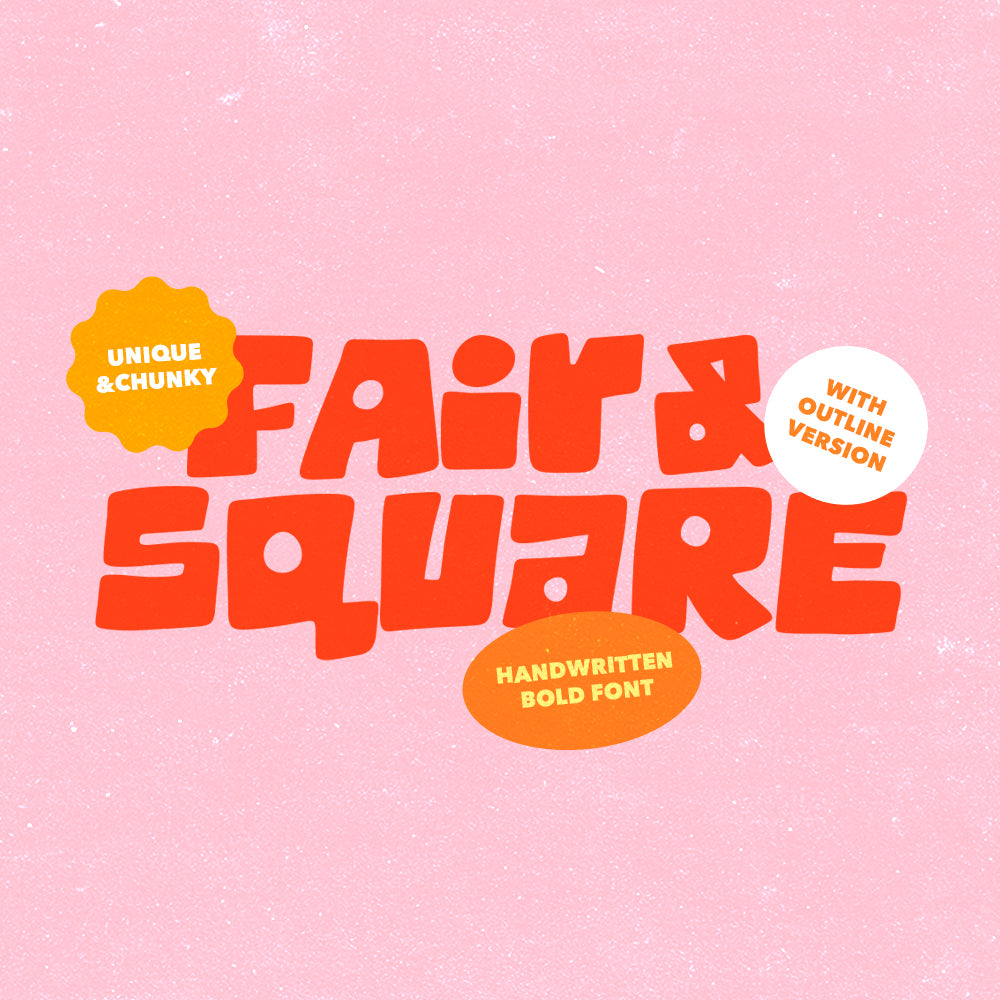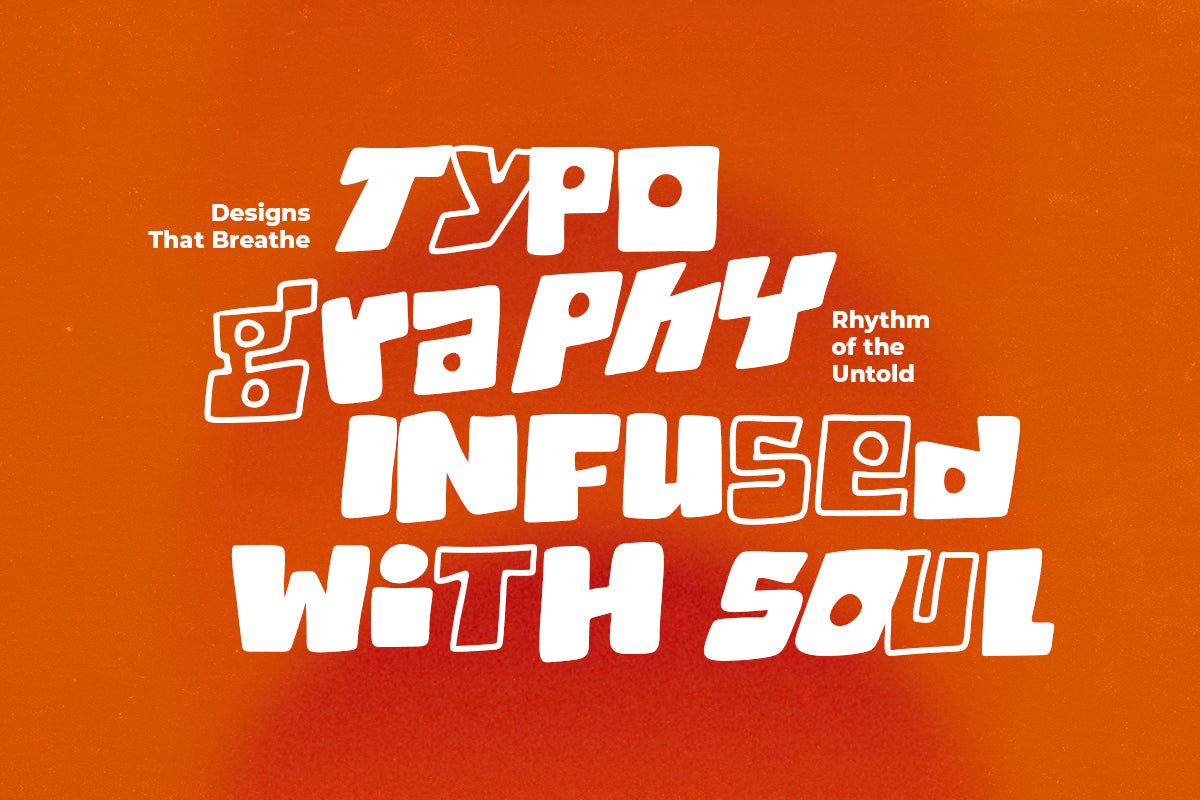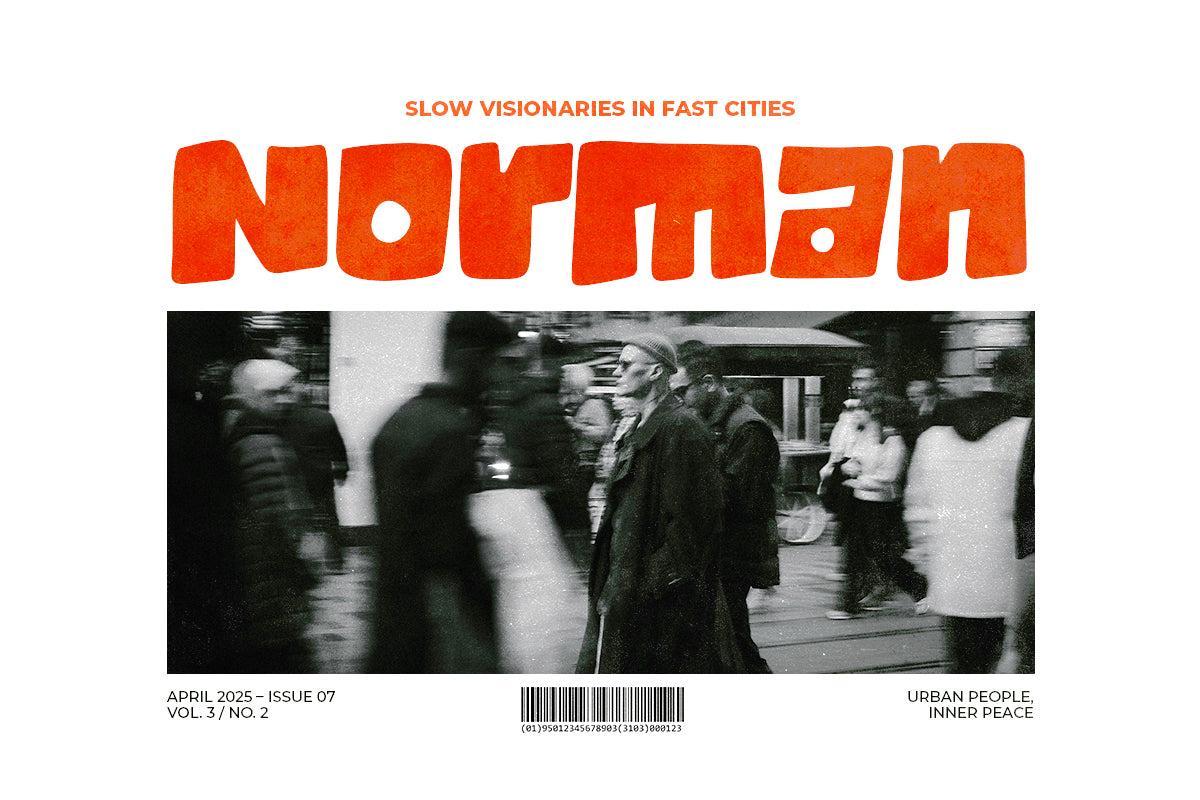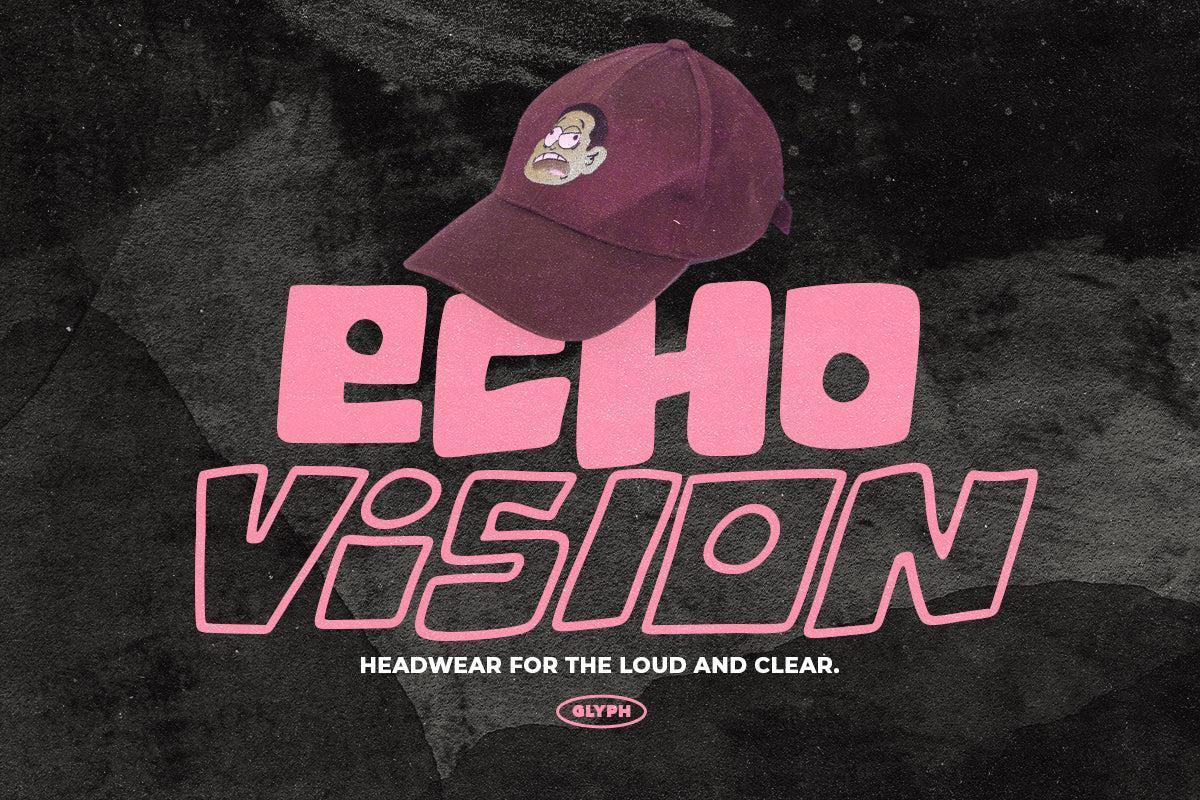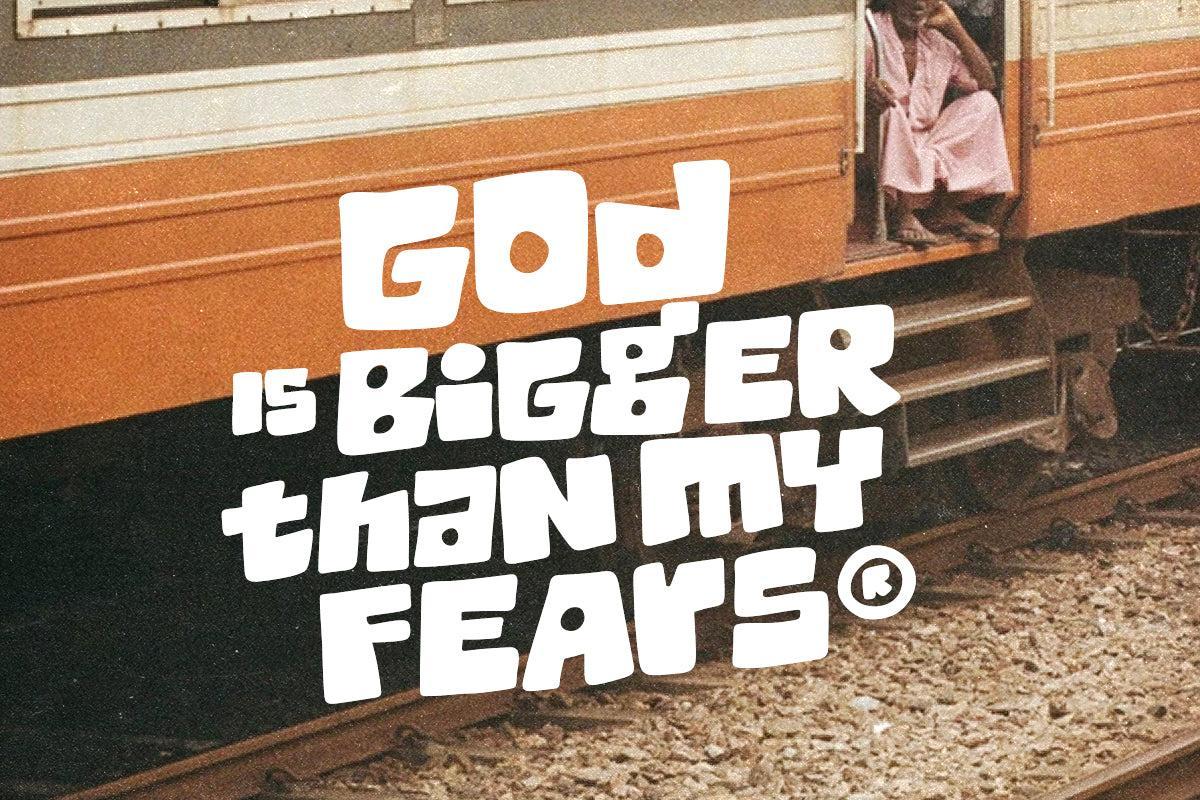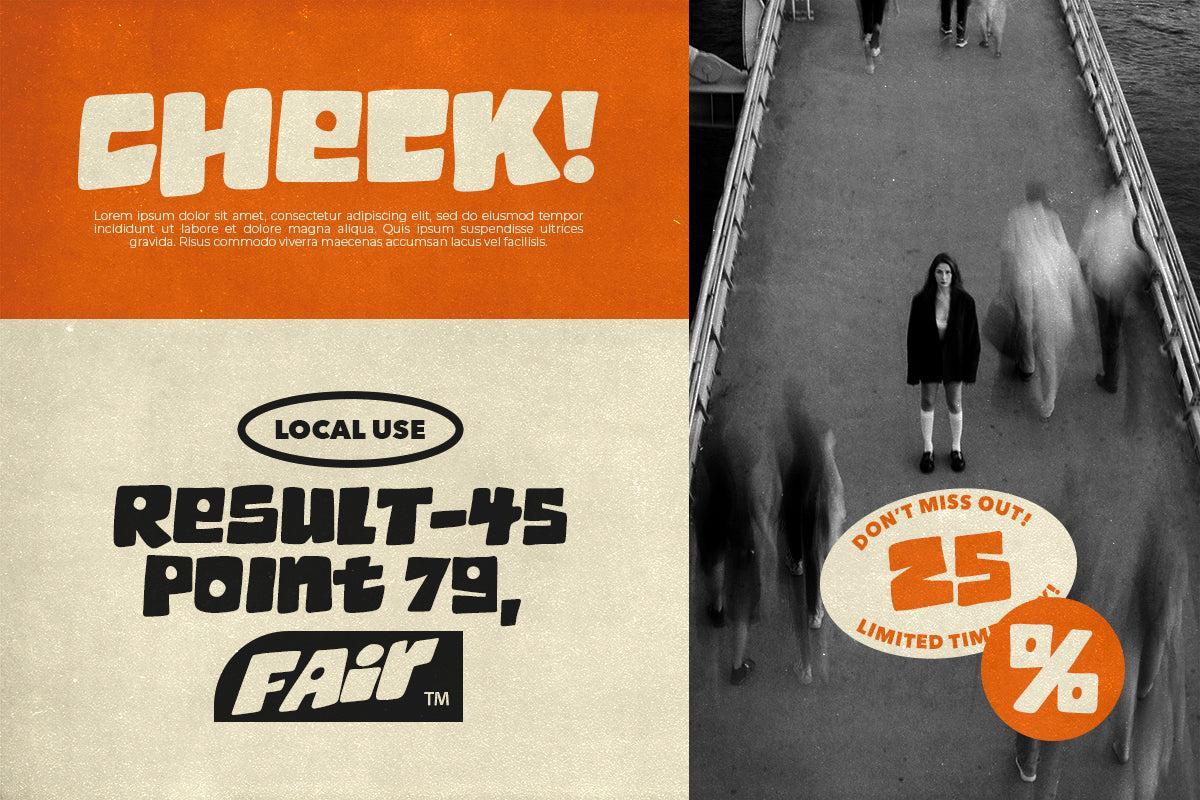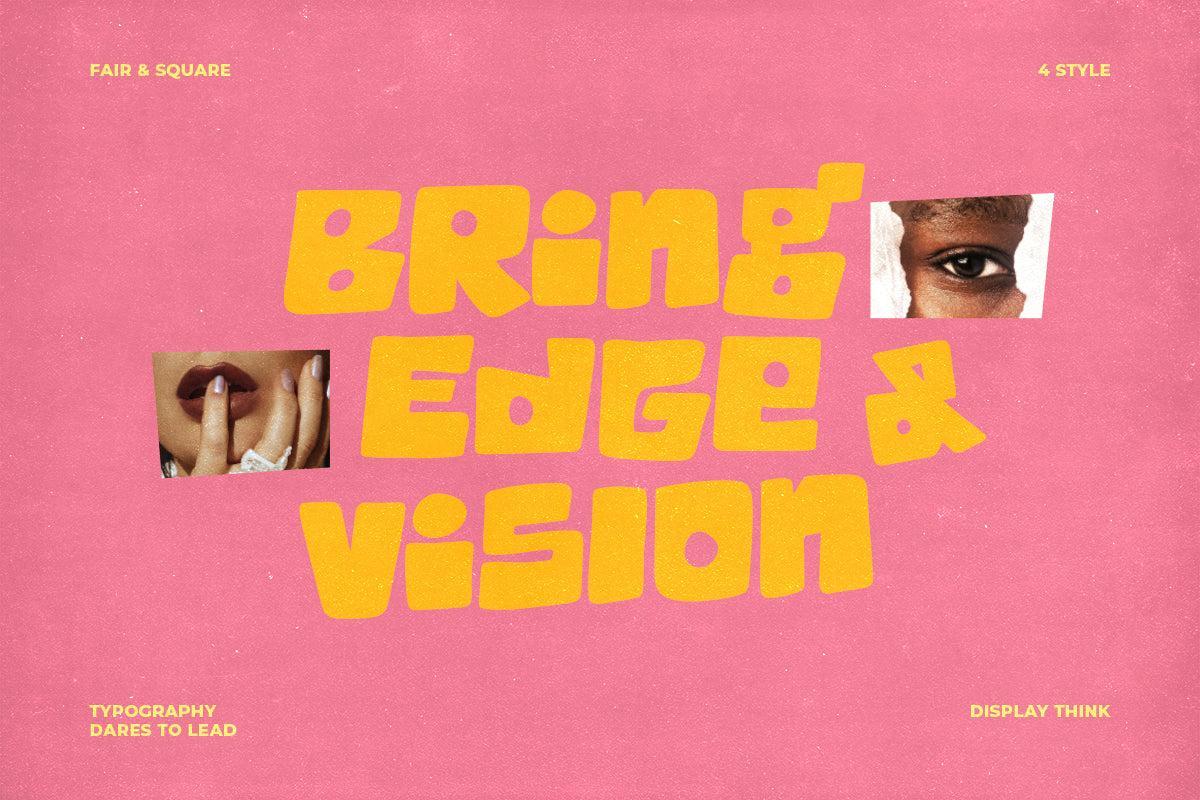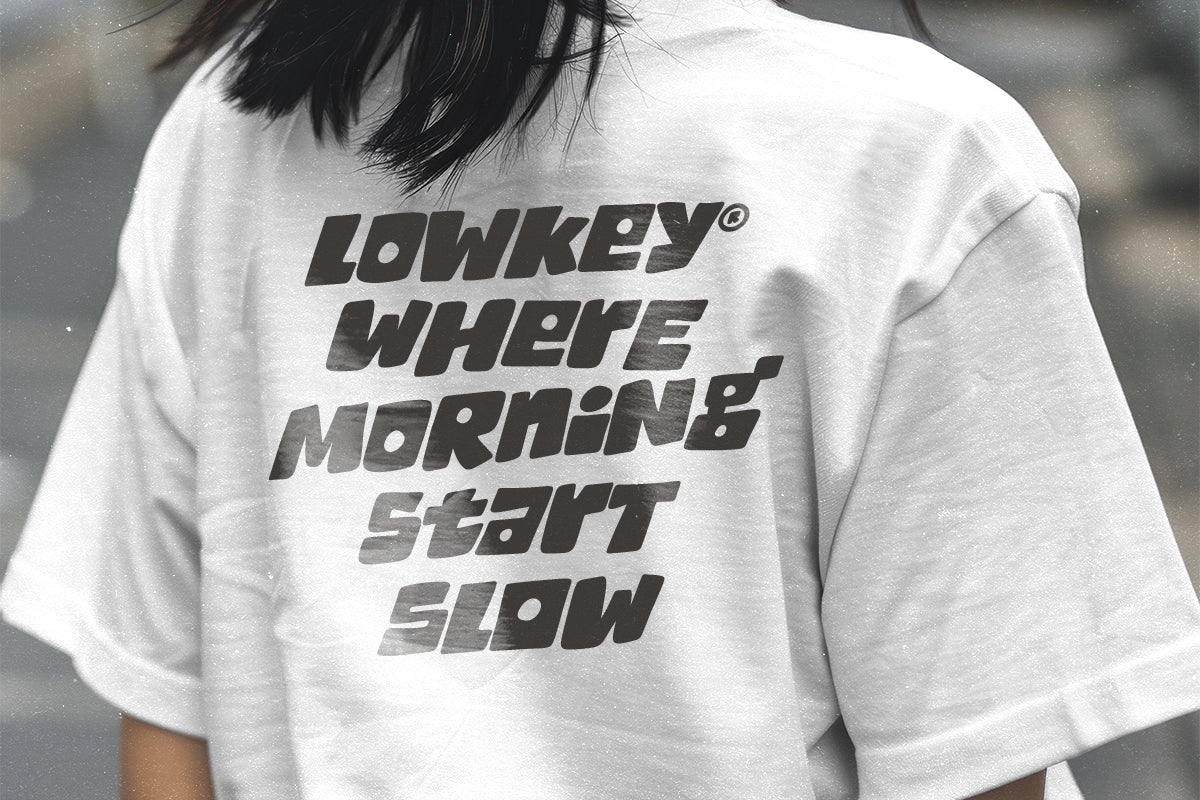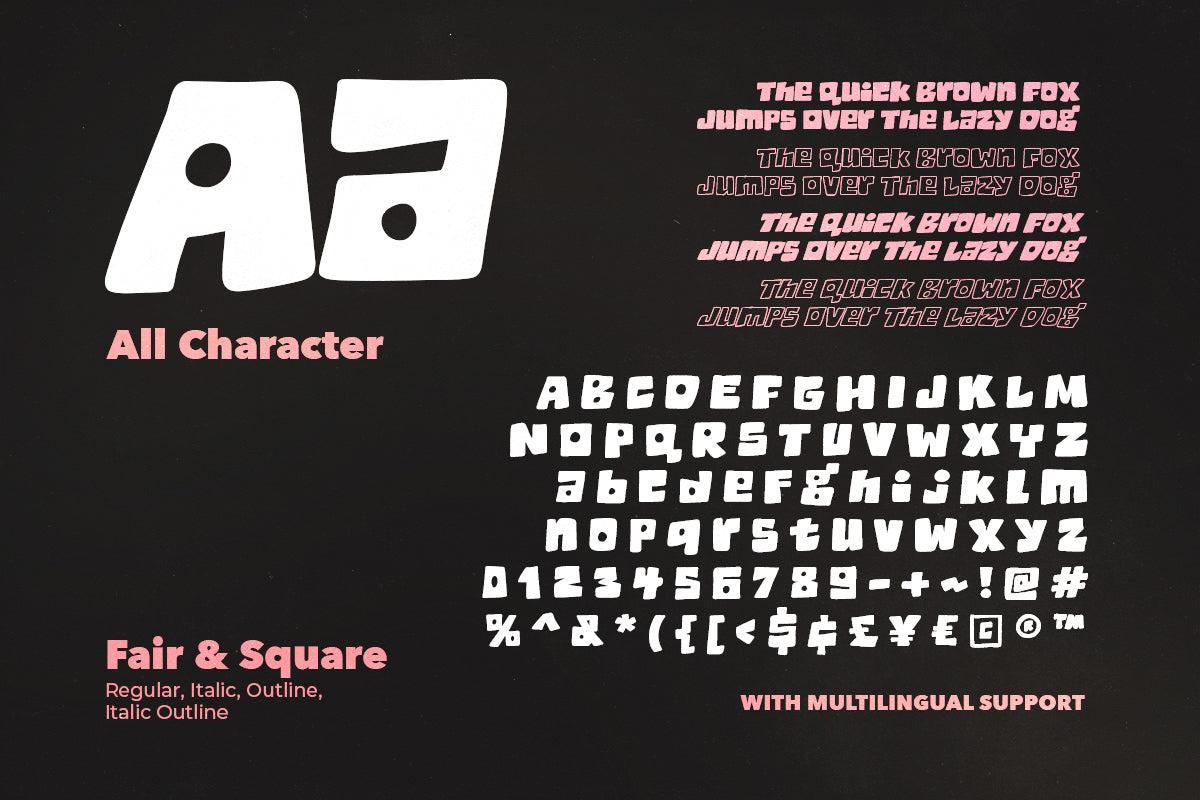
Fair Square - Chunky Bold Font
Fair Square is a chunky bold sans serif font featuring unique uppercase and lowercase combinations, along with italic and outline versions. It supports multiple languages and is suitable for various design projects, including posters, branding, and logotypes.